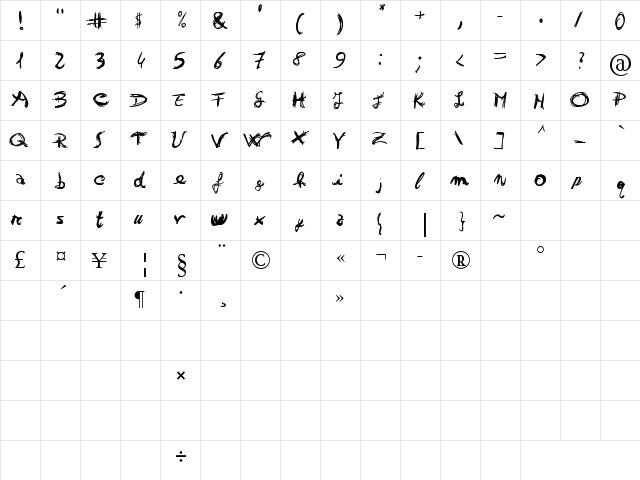
Otrack Regular
| Foundry | Sodina |
| Designer | Sodina |
Design Context for Otrack Typeface
Otrack is a composed and adaptable typeface that performs quietly and consistently across a wide range of design contexts.